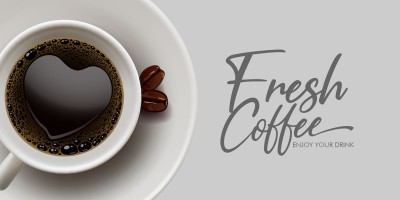
Emitensy script Free Download
Emitensy Script Font Free Download
Emitensy Script Font is perfect for elegant personal branding, sophisticated signature designs, luxury invitation stationery, refined beauty product packaging, graceful wedding announcements, upscale boutique marketing, intimate handwritten letters, and distinguished calligraphy workshops.
This font is exciting because it embodies graceful handwriting with refined elegance and sophisticated script beauty. Emitensy Script Font features flowing cursive letterforms with elegant pen strokes that capture the essence of masterful calligraphy and personal sophistication, making it ideal for projects that require authentic handwritten character and luxurious appeal.
The Emitensy Script Font family includes regular, light, bold, and ornamental variants, along with elegant alternates and calligraphic ligatures that enhance its sophisticated character. Each weight maintains the font's graceful aesthetic while providing different levels of script expression for various luxury and personal design applications.
Whether you're developing refined personal brands, creating compelling calligraphy materials, or designing sophisticated handwritten campaigns, Emitensy Script Font Free Download delivers exceptional elegance and script appeal. Its distinctive handwritten style makes it an excellent choice for designers seeking to add genuine calligraphic beauty and personal sophistication to their projects. The font's versatility extends from luxury stationery design to elegant signature branding, ensuring consistent performance across all refined applications. With its elegantly crafted letterforms and script proportions, this typeface provides professional results that convey personal touch and establish sophisticated brand presence with its unmistakable calligraphic character and refined handwritten elegance.